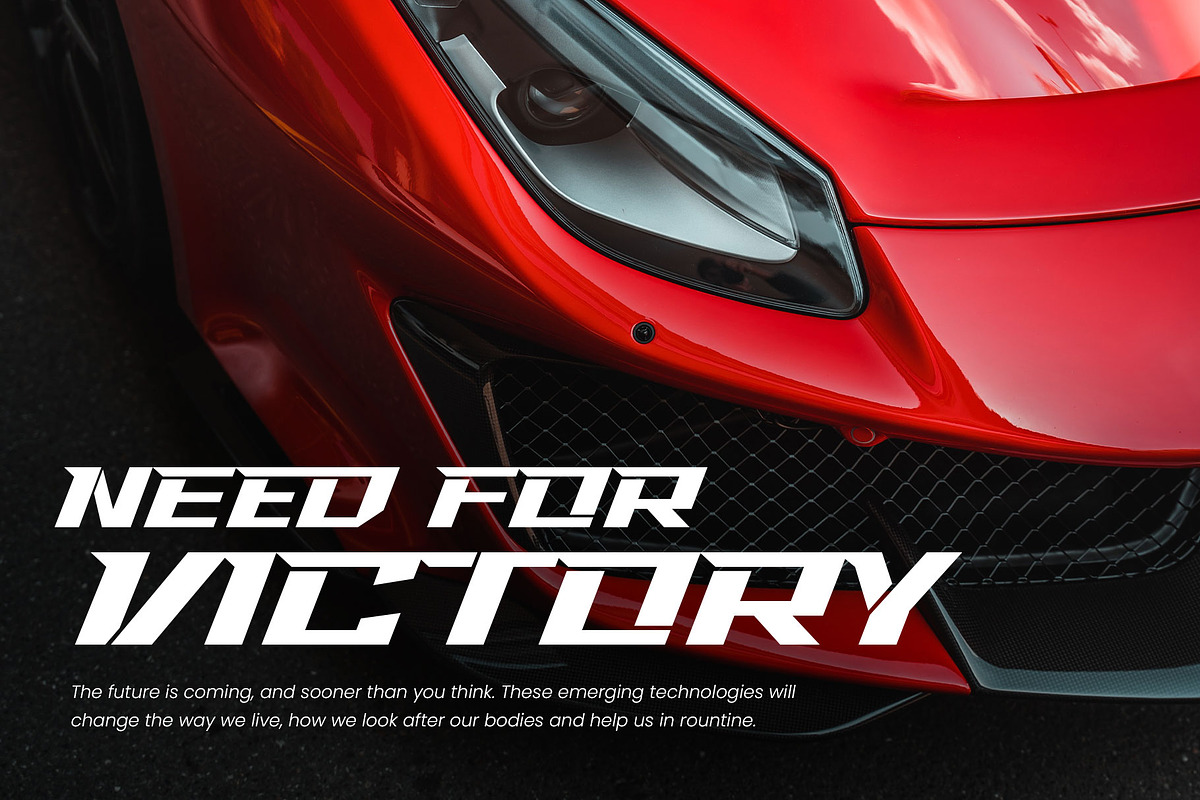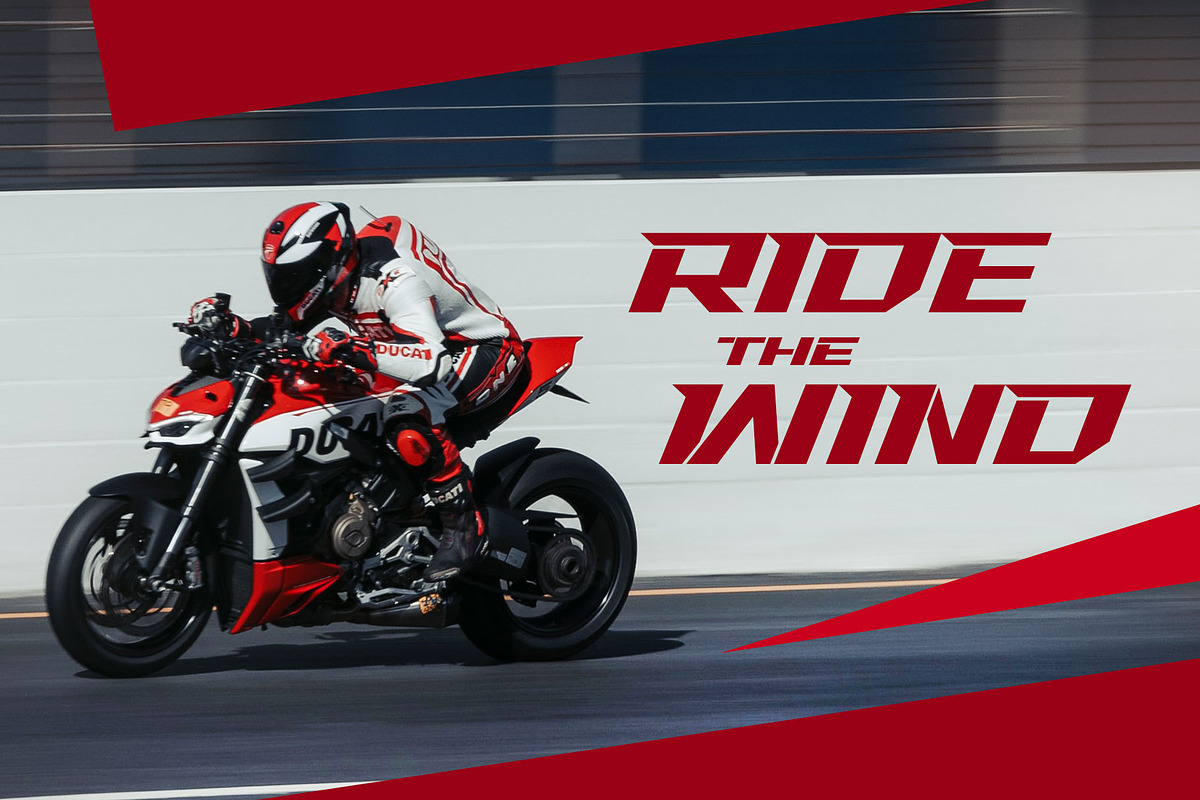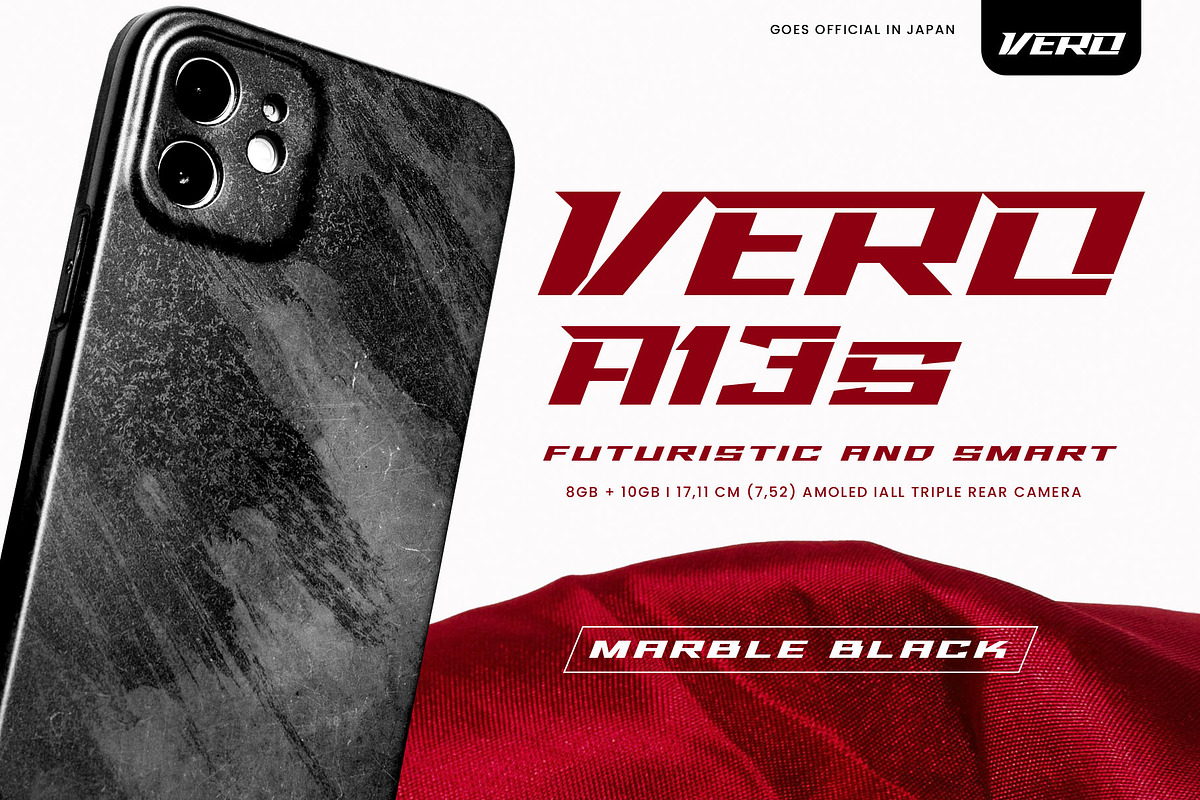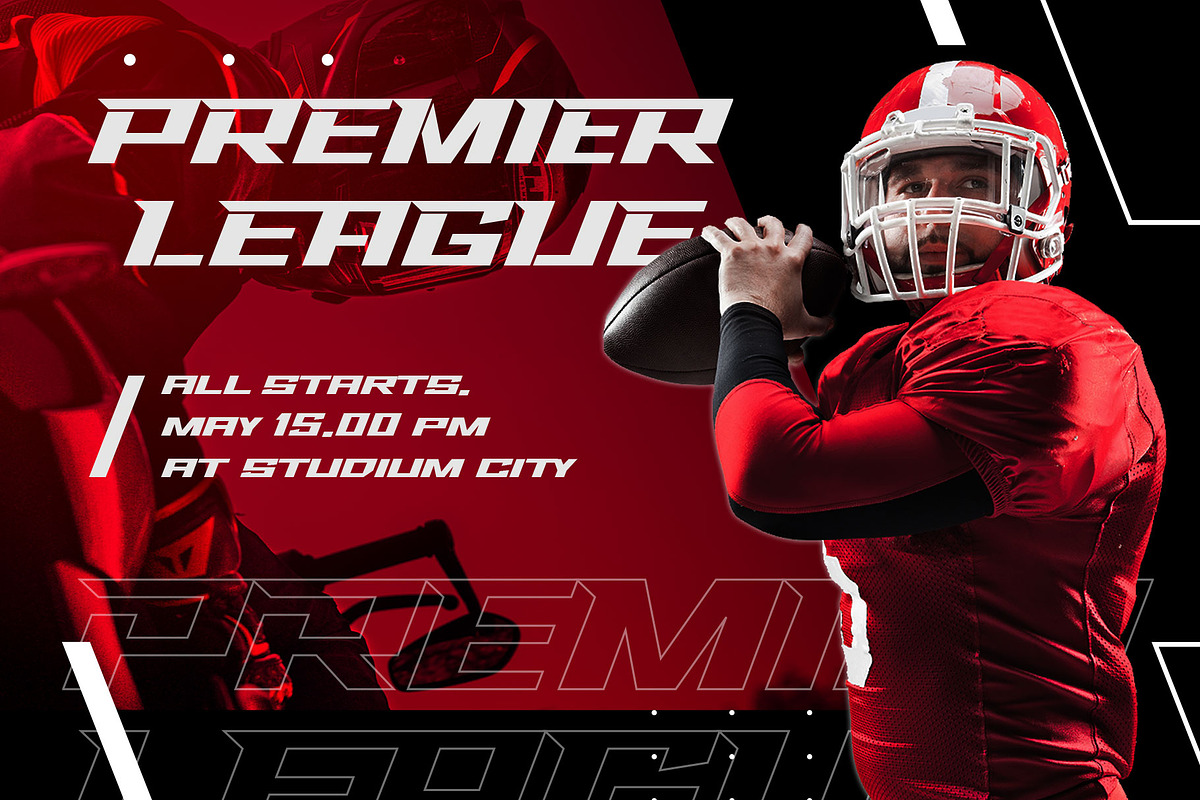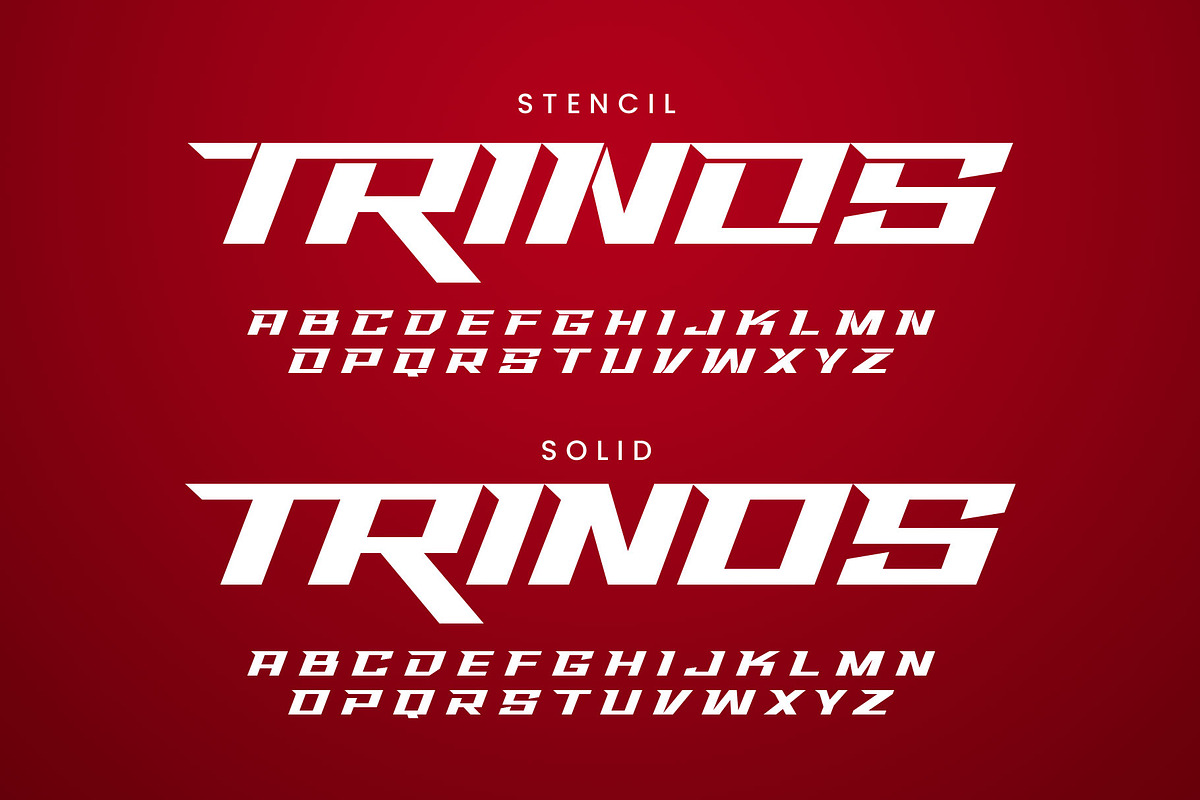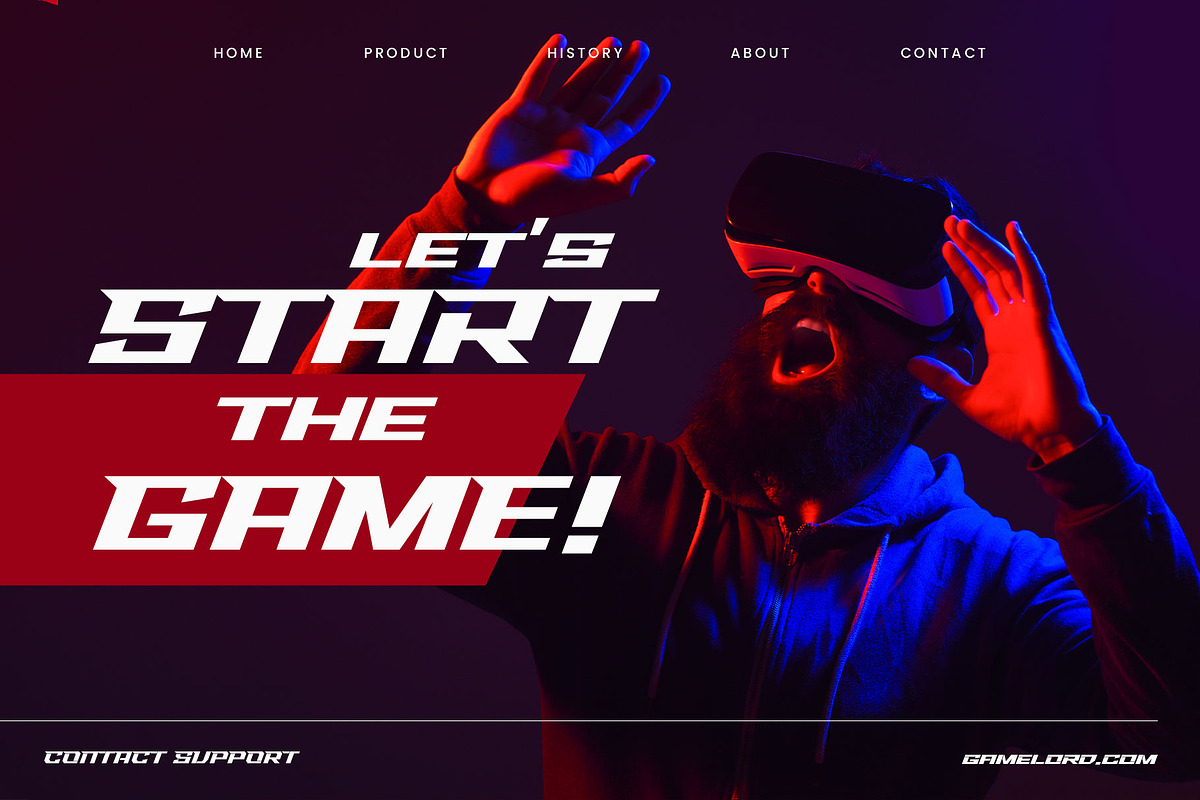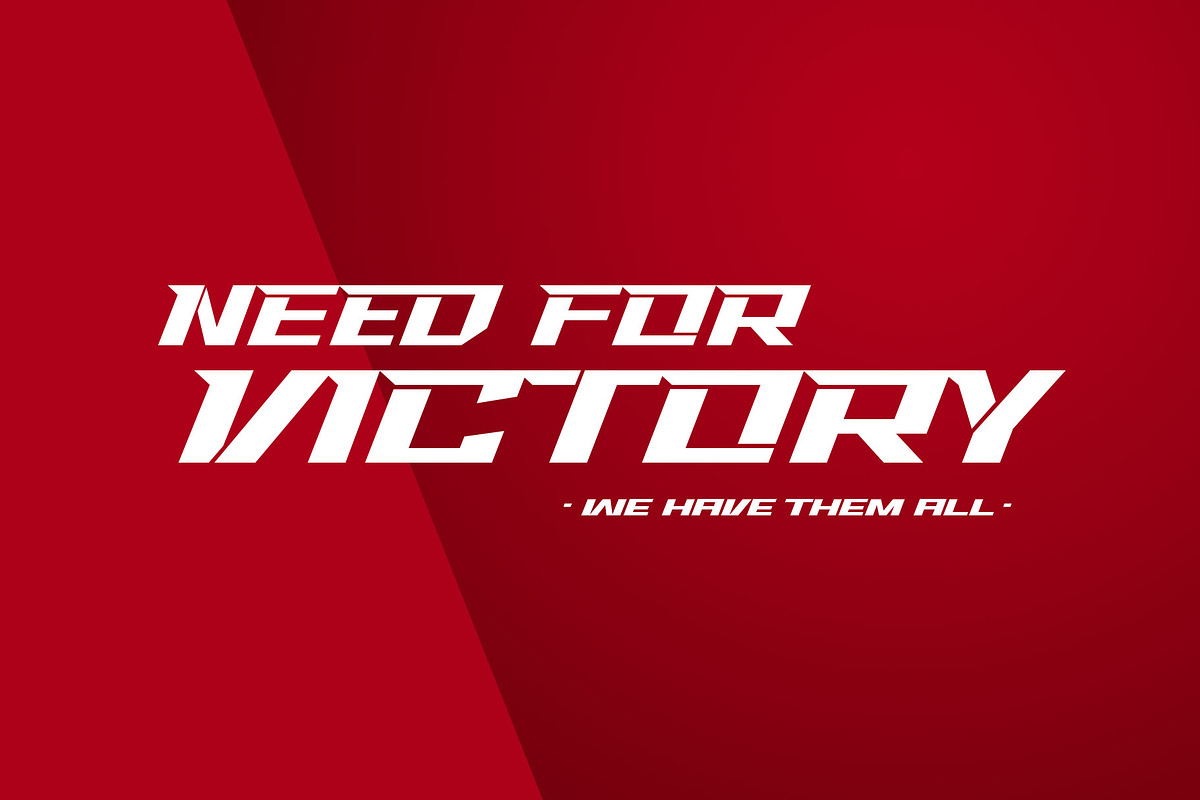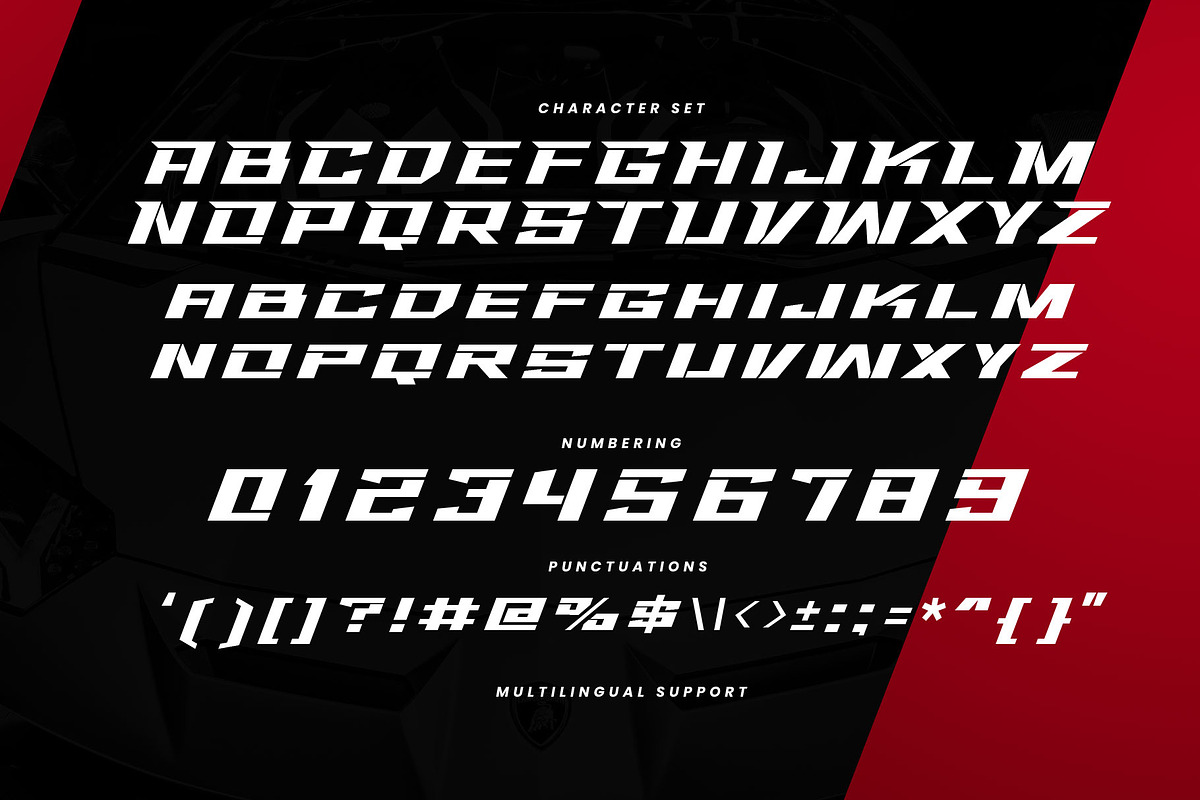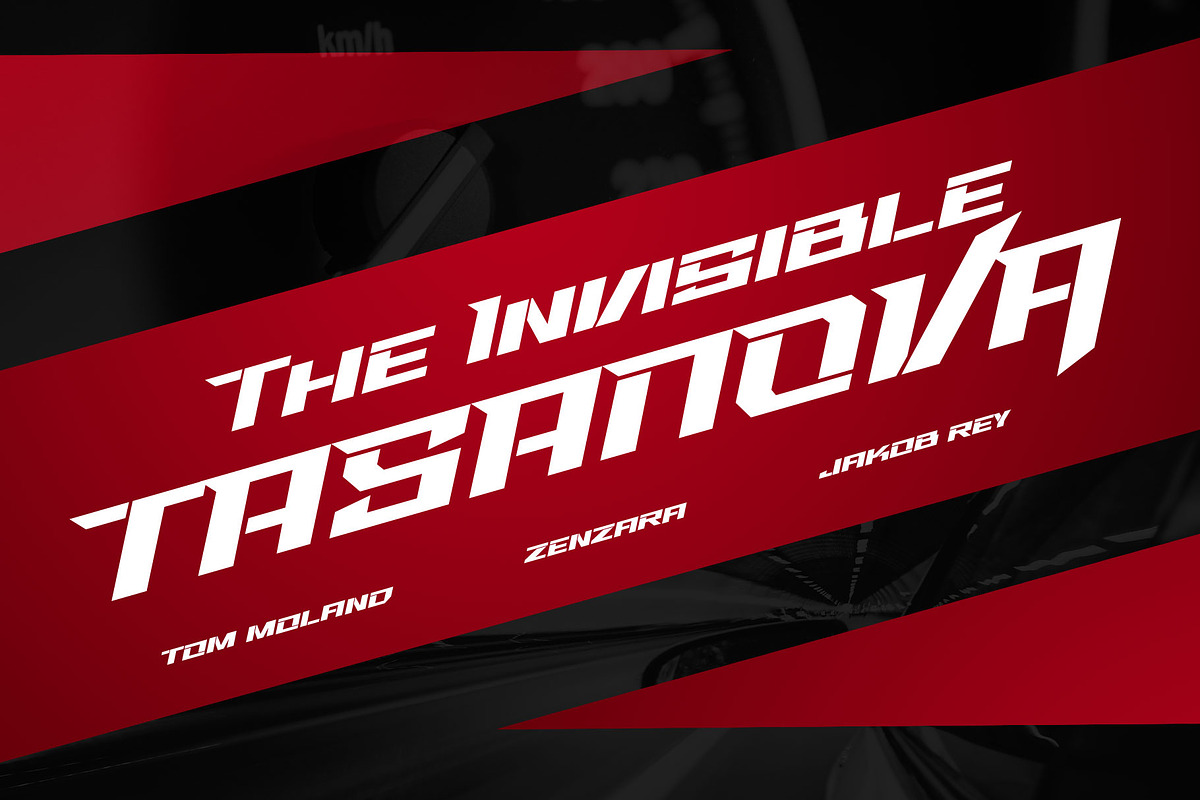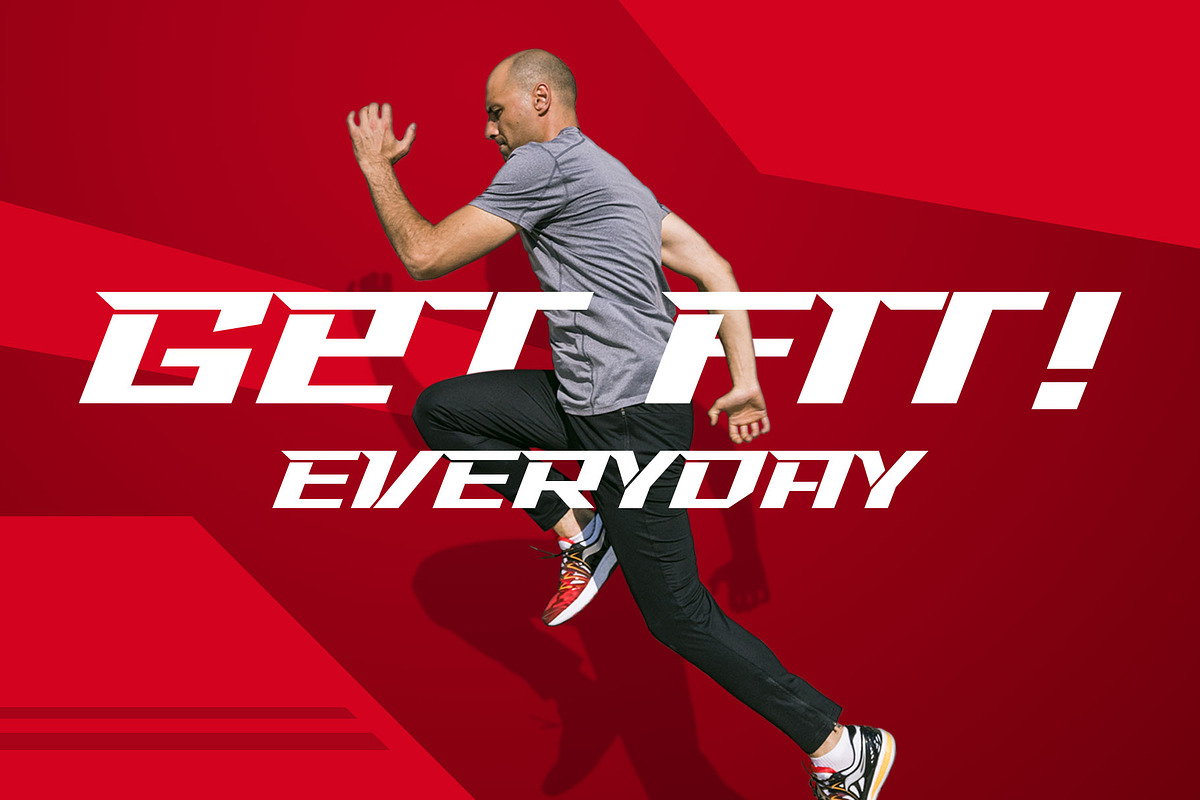
Trinos - Sporty Tech Font
Trinos is a strong character font that combines racing style and techno with a slightly expanded letterform and sharp edges. The sharp spur on the top of letterforms, bold weight, and fully geometric represent strength, honor, and brave.
Speed up your pulse with Trinos font available in Stencil and Solid style. This all-caps font is perfect for sports, great for automotive, and looks cool for techno themes. You can apply this font for jerseys, decals, flags, logos, posters, magazines, packaging, and many more!
Not only that. Trinos is equipped with much of alternates characters, and elegant ligatures to boost your design look more powerful!
- Uppercase & smallcaps
- Stylistic alternates